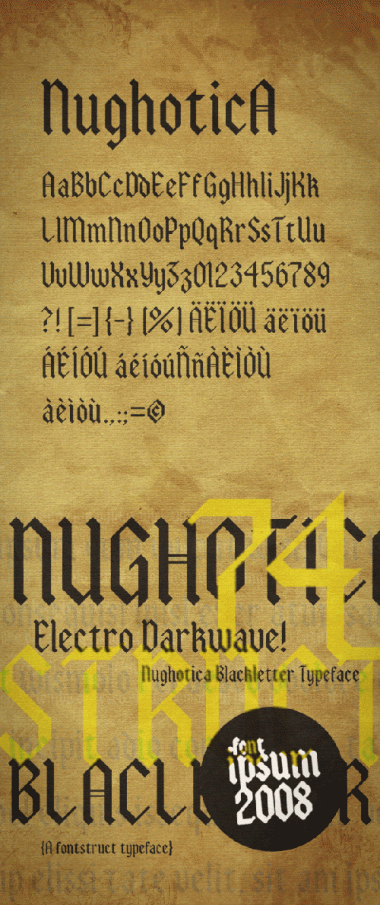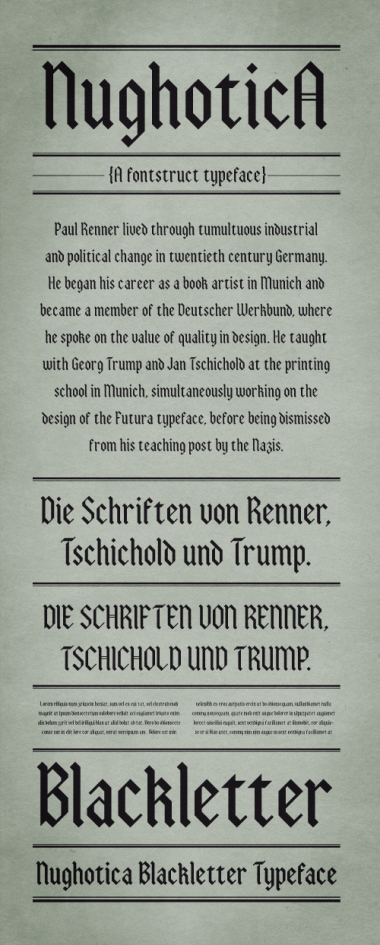
NugothicA
by Axel Leyer
Oh wow! The gray sample looks totally professional. Uppercase T and lowercase d are gems. Excellent.
Great font. Awesome samples.
I don't know where to start praising this thing, but it's breathtaking nicely done in so many ways. nice decisions, tasty sample again.
after all we got a nice looking palette of blackletter fonts on FS!
This is a wonderful addition to the group. watch out for my "BLACKBETTER" being finished/published soon!!!
*the font i invested most time and effort in, yet!
Axel strikes again... Beautiful job!
I know that blackletter typefaces are really hard to do or at least need a very good feel for balance. the white space and therefore the contrast of the typeface needs to adjusted very carefully.
you succeded and did a great job.
dude, you are smokin'. you have been hitting the bullseye with great consistency. congrats and continue.
My sentiments exactly, funk_king. Great eye, Axel. It's really nice to see someone do so many different kinds of typefaces with such consistently good work. Well done, Axel.
speechless.
Wow...what can I say... Thanks for the comments! you´re so kind guys!
@Kix: Can´t wait to see your Blackletter, I´m sure is going to be a top one ("most time and effort..." looking at Ariapenciroman I can´t imagine what you´re gonna show us but sure it will be a great one... :)
@Thalamic: I always tried to do different kinds of typefaces because I think is the best way to understand the essence of typography, looking for that "thing" that is common in all typefaces is the best way to learn ...and if you do it playing...better. I think that anyboby can learn about nothing if you don´t enjoy doing it. :)
Another time...thanks to all of you, is nice to have feedback, much appreciated. :)
Excellent work, both the font and the sample.
Out of curiosity, how much time do you put into a font like this and the sample? I'm just wondering how the time compares to how much time I've spent on mine.
Hi Aphoria, It depends....but in this case I began to "fontstruct" 2 months ago...well...I really began to think about it and "draw" the first mental sketches earlier, so this was cooking in my mind more time ago. This period, of course, was not fulltime.
About the samples, I don´t spend so much time, from 5 to 30 minutes (before this, during the creation process, I play with the typeface on a text editor to see how it works; then made the adjustments it needs or completelly rethink from the beginning).
:)
There is a reason why I have attempted almost every style except Blackletter. It's hard for me, so I deeply respect those who create them. You've made this look so easy. I really vibe with wolfkrim's Texture, and eagerly await kix's Blackbetter, but the simplicity and legibility of this typeface in your samples are absolutely beautiful. Bravo!